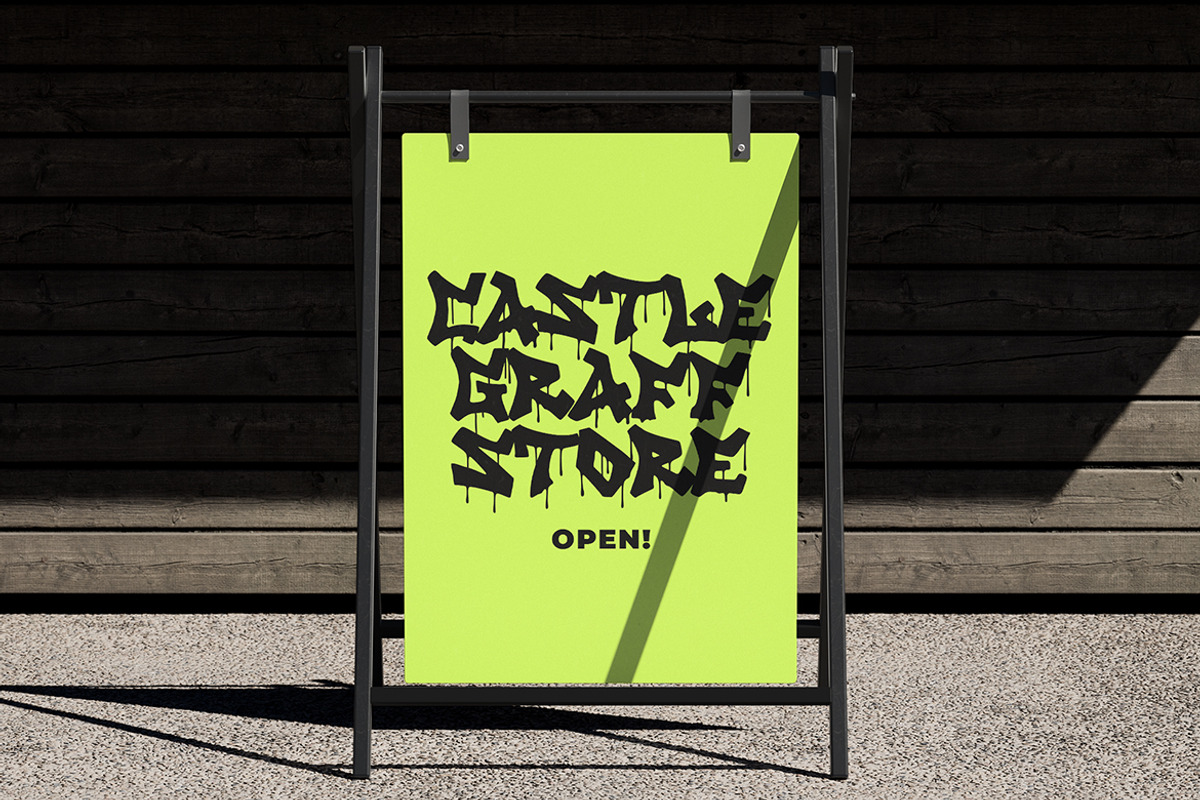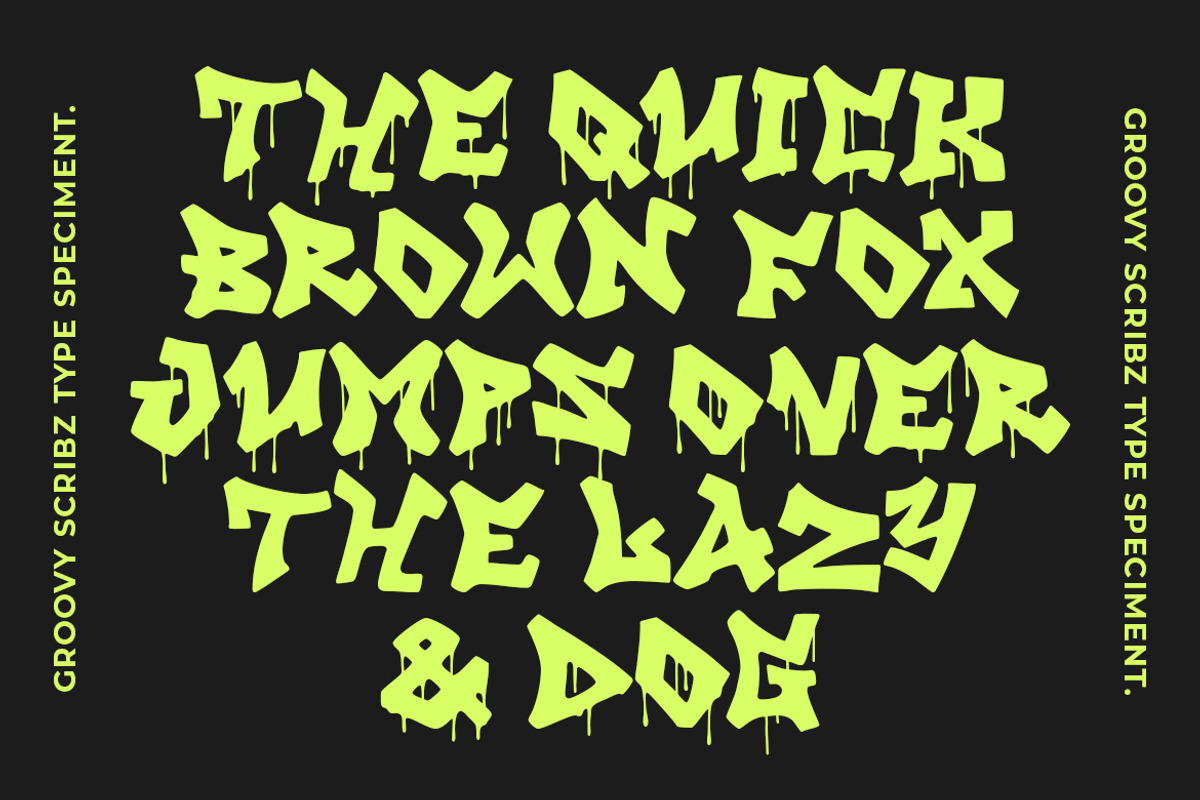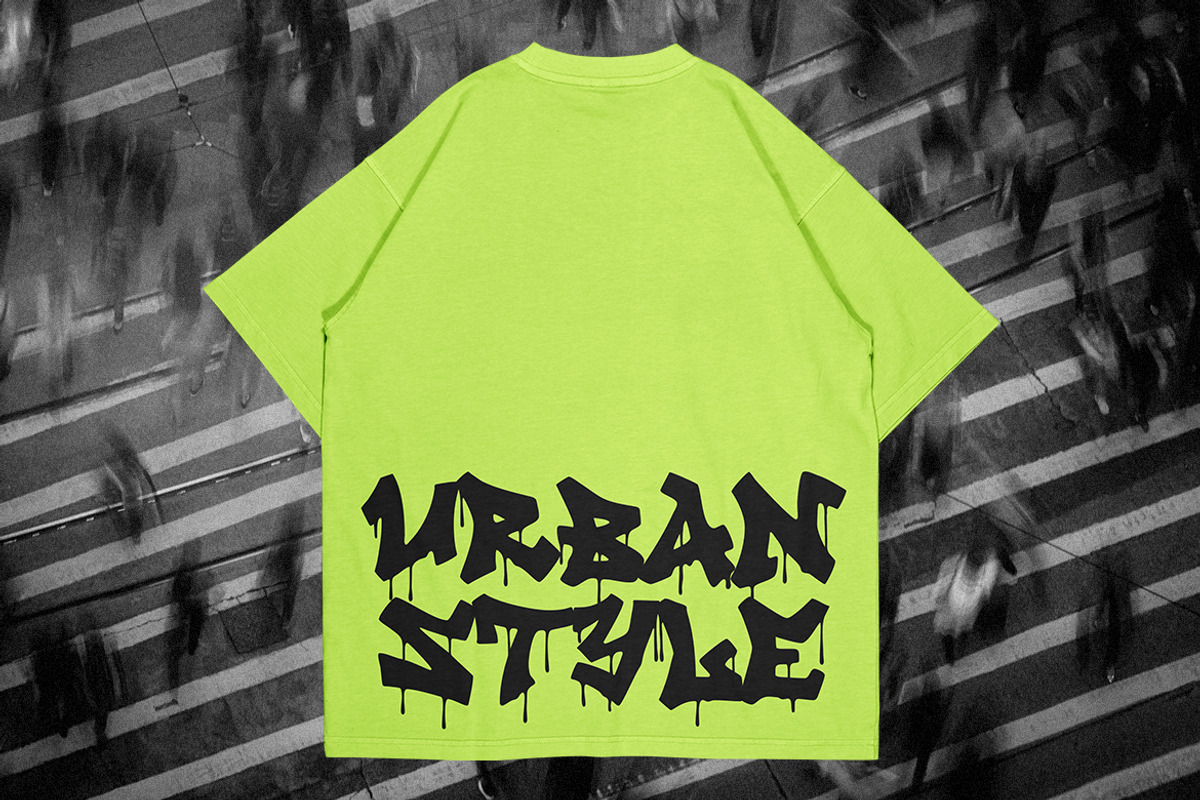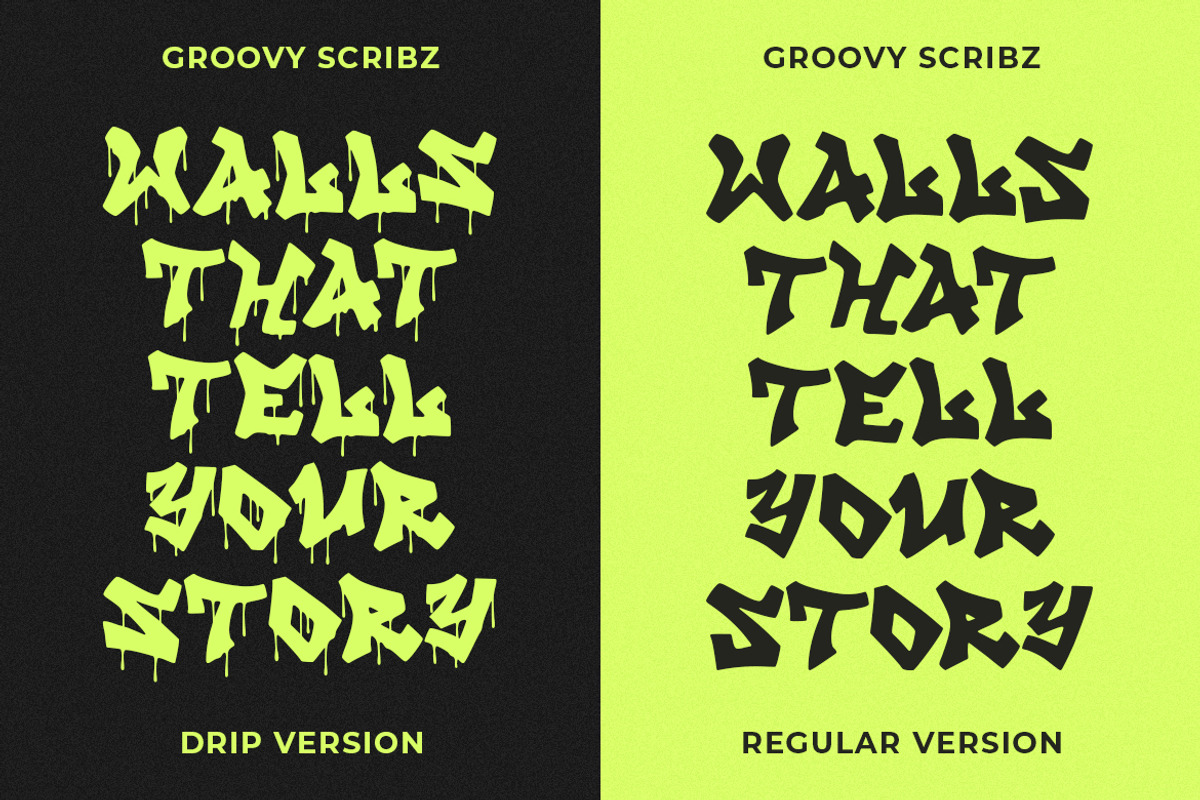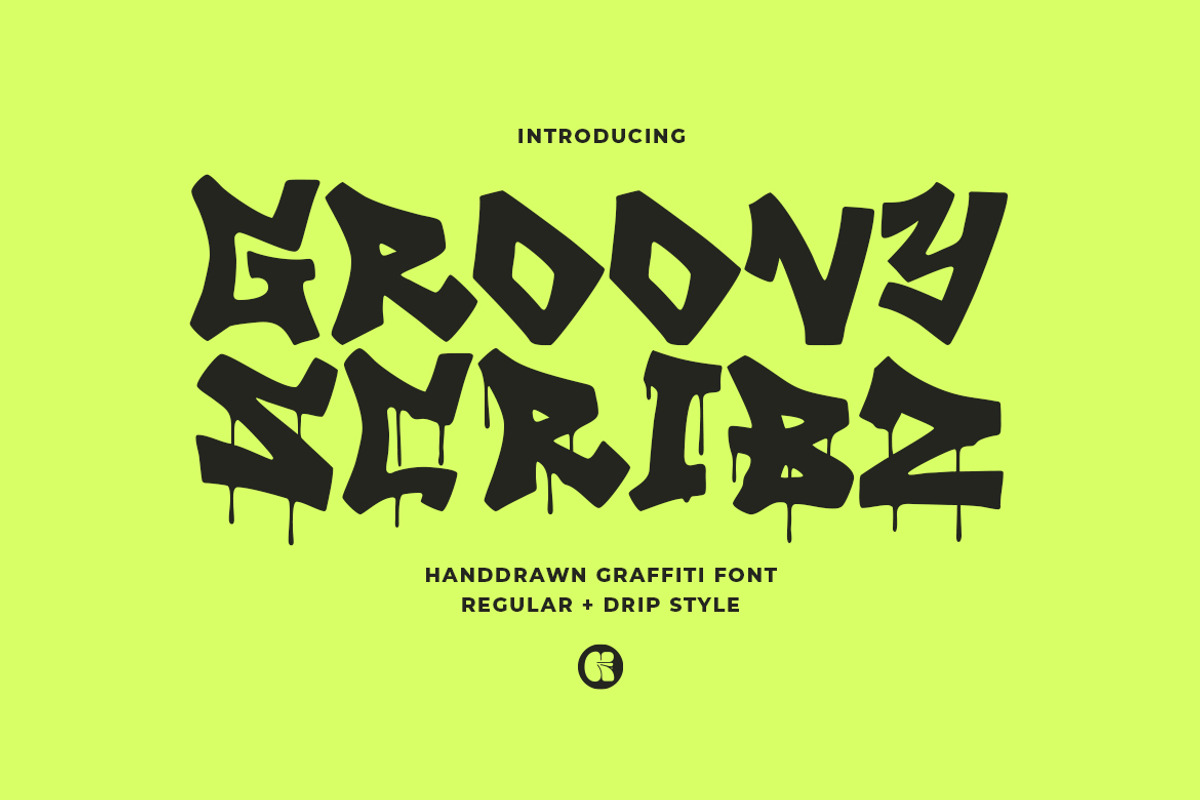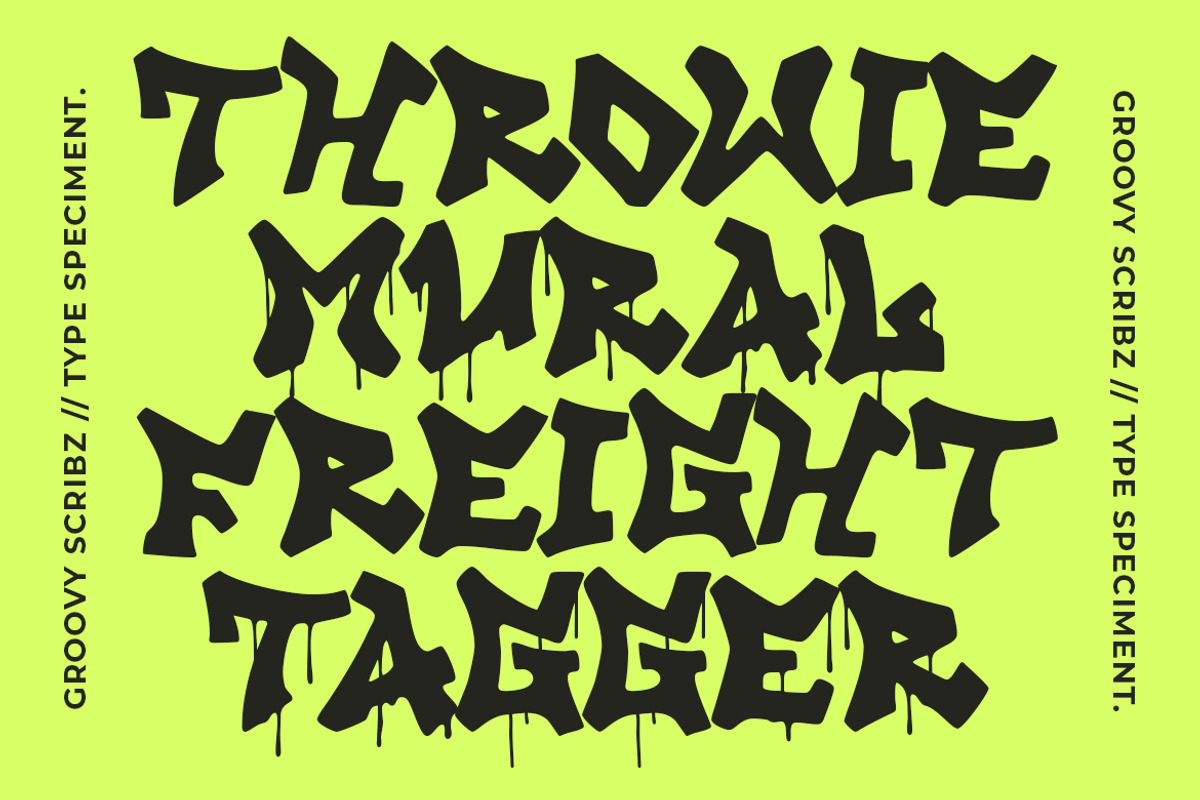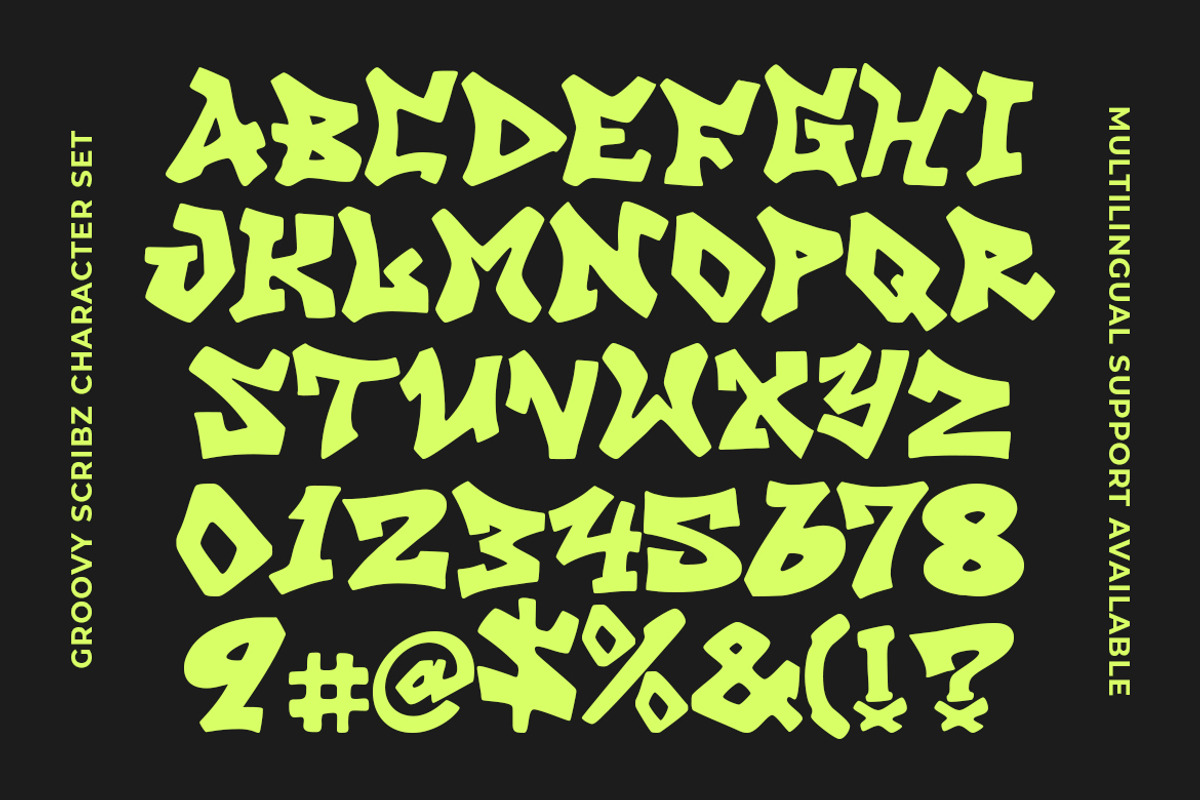
GF Scribz - Graffiti Font
Groovy Scribz is a vibrant and expressive handdrawn graffiti font that captures the essence of street art. Inspired by the bold and dynamic writings found on city walls, this font exudes an urban and edgy vibe.
With two versions available - regular and drip style - Groovy Scribz offers versatility and creativity for any design project. Let your text come alive with this captivating and unique font that adds a touch of rebellious energy to your work.